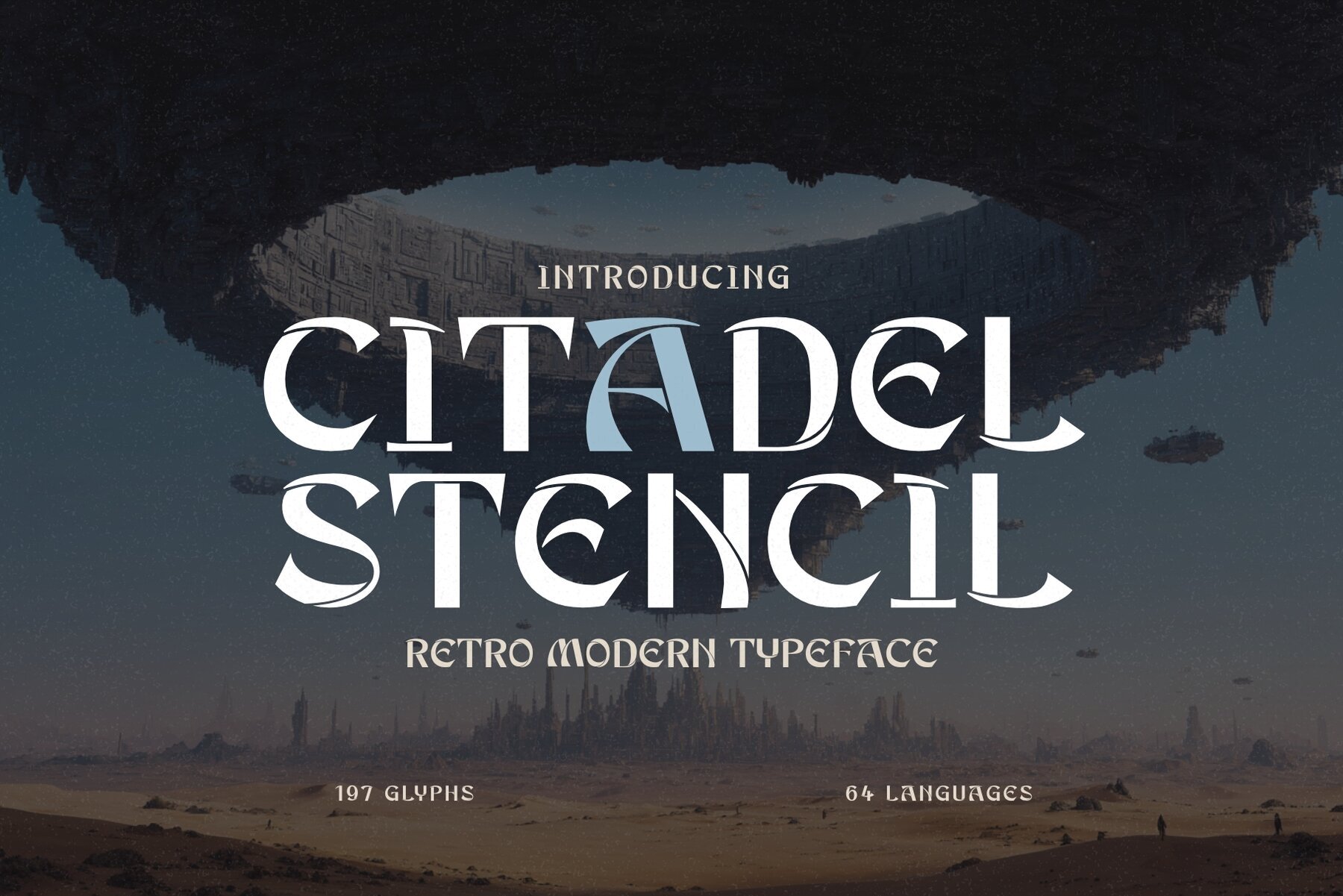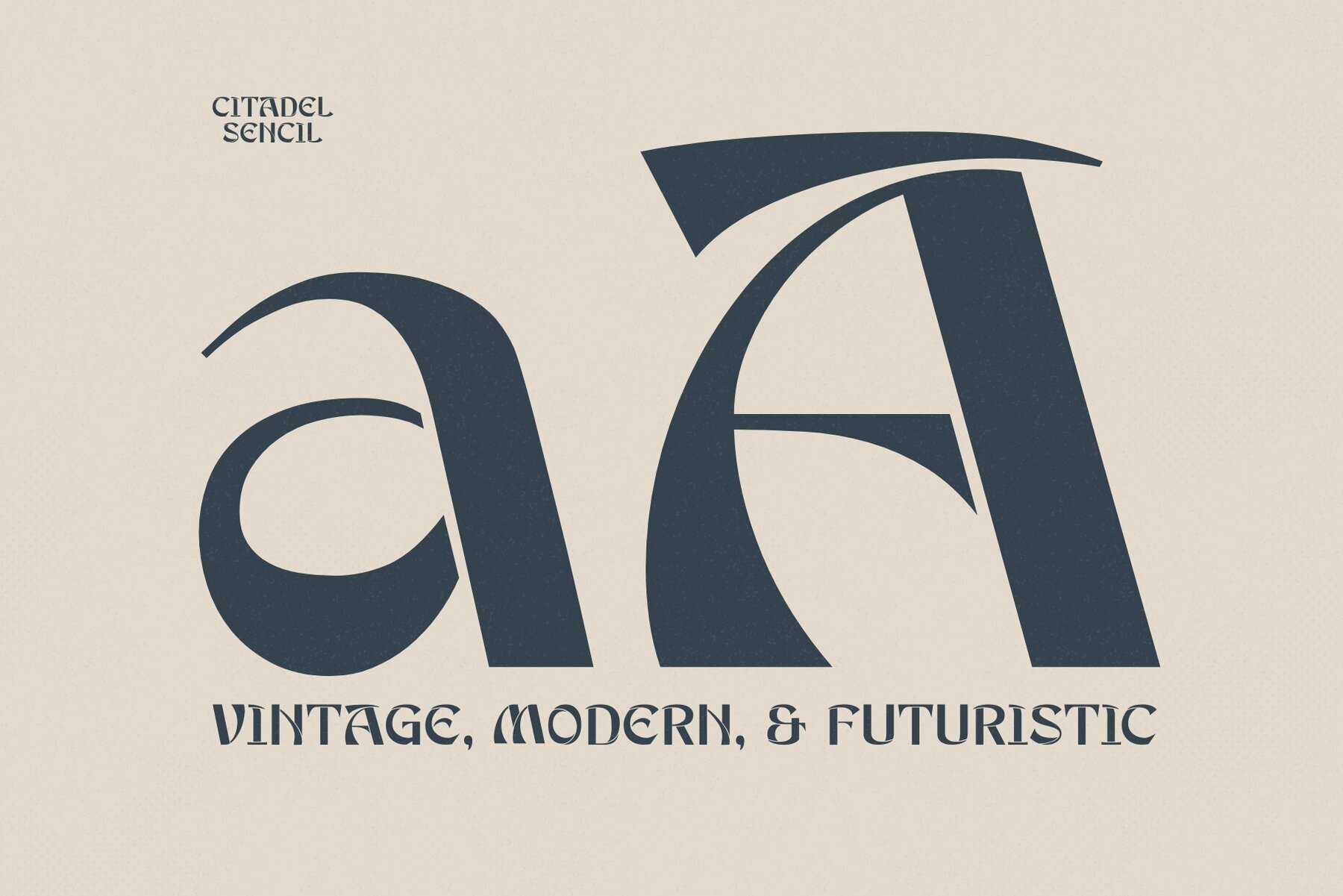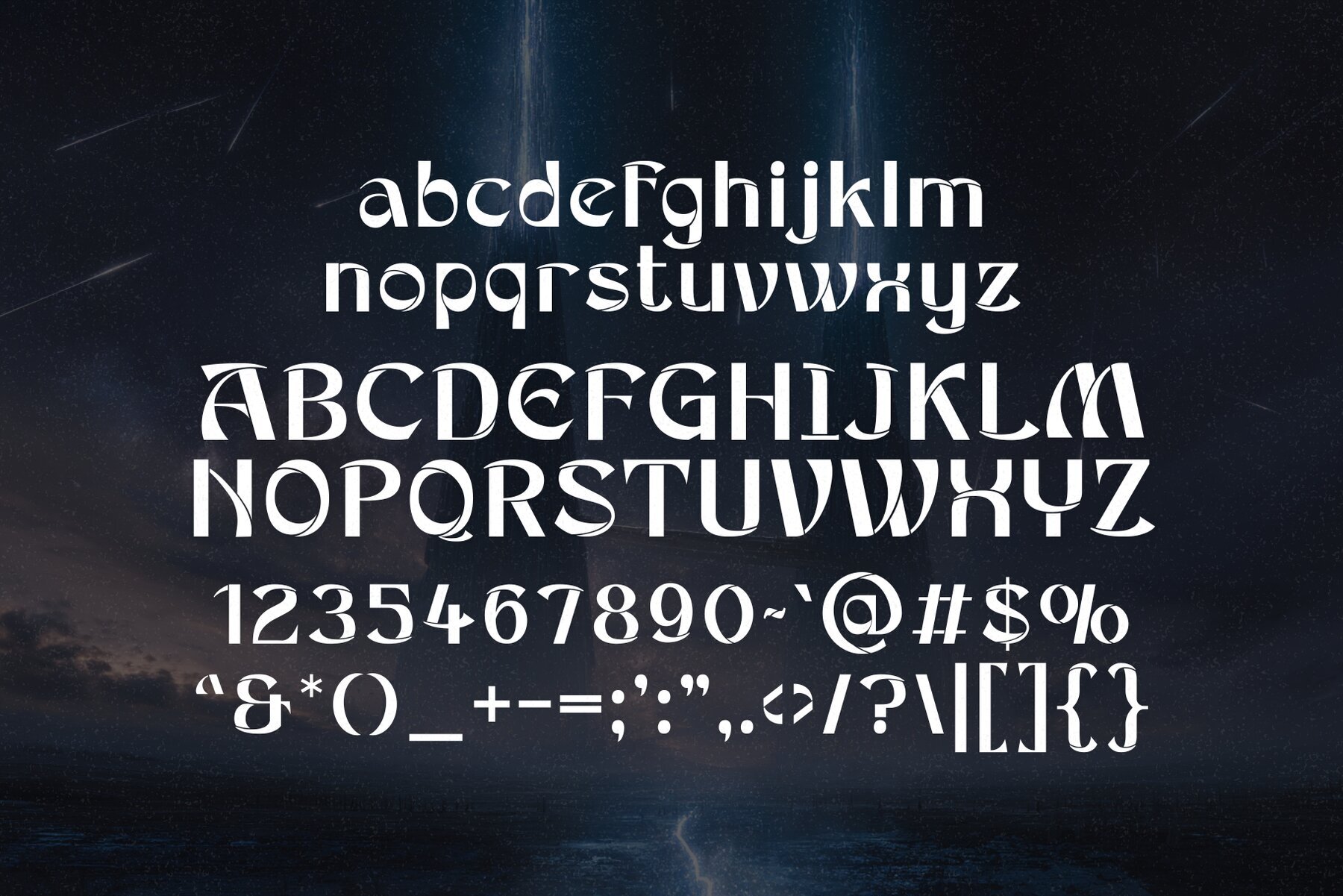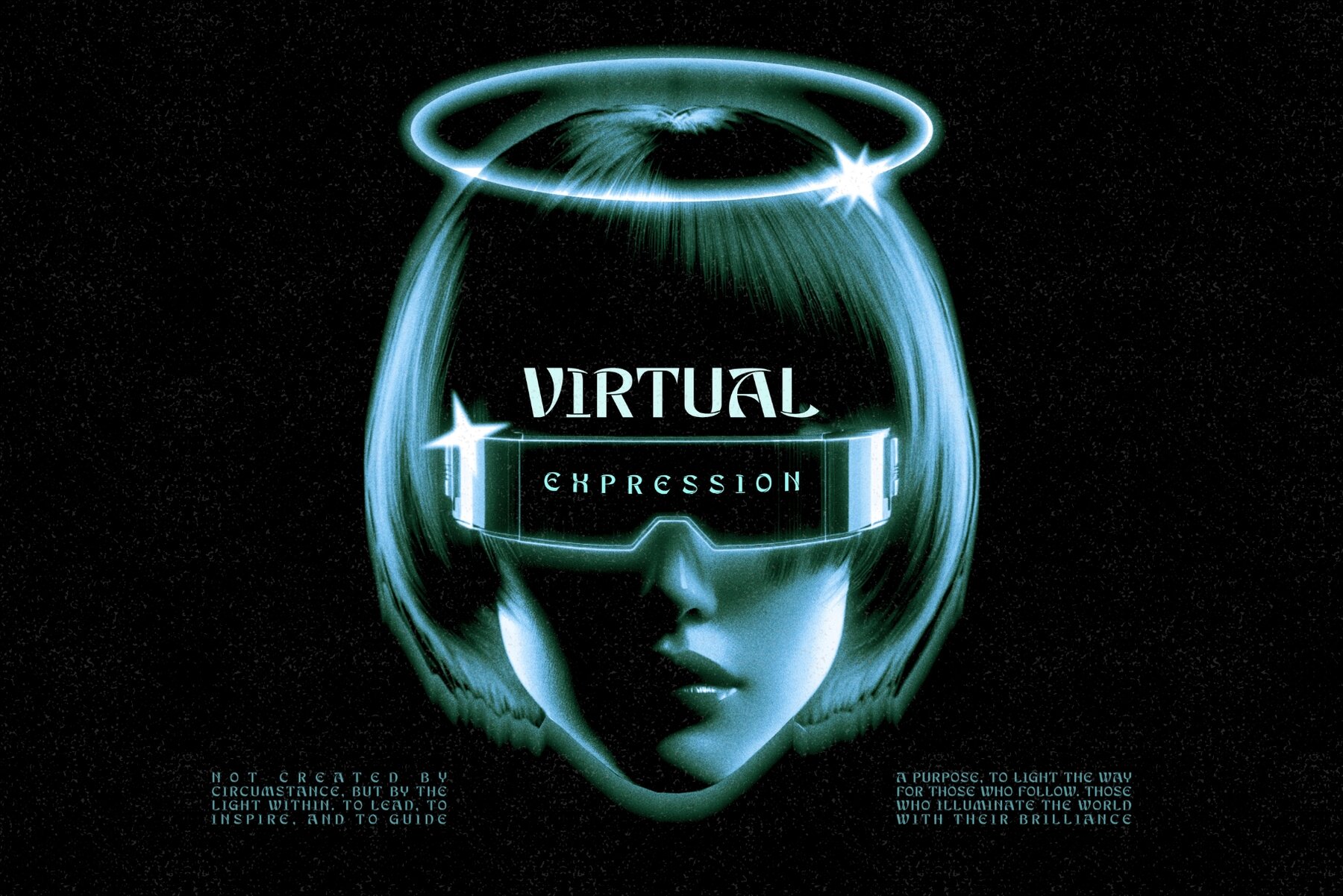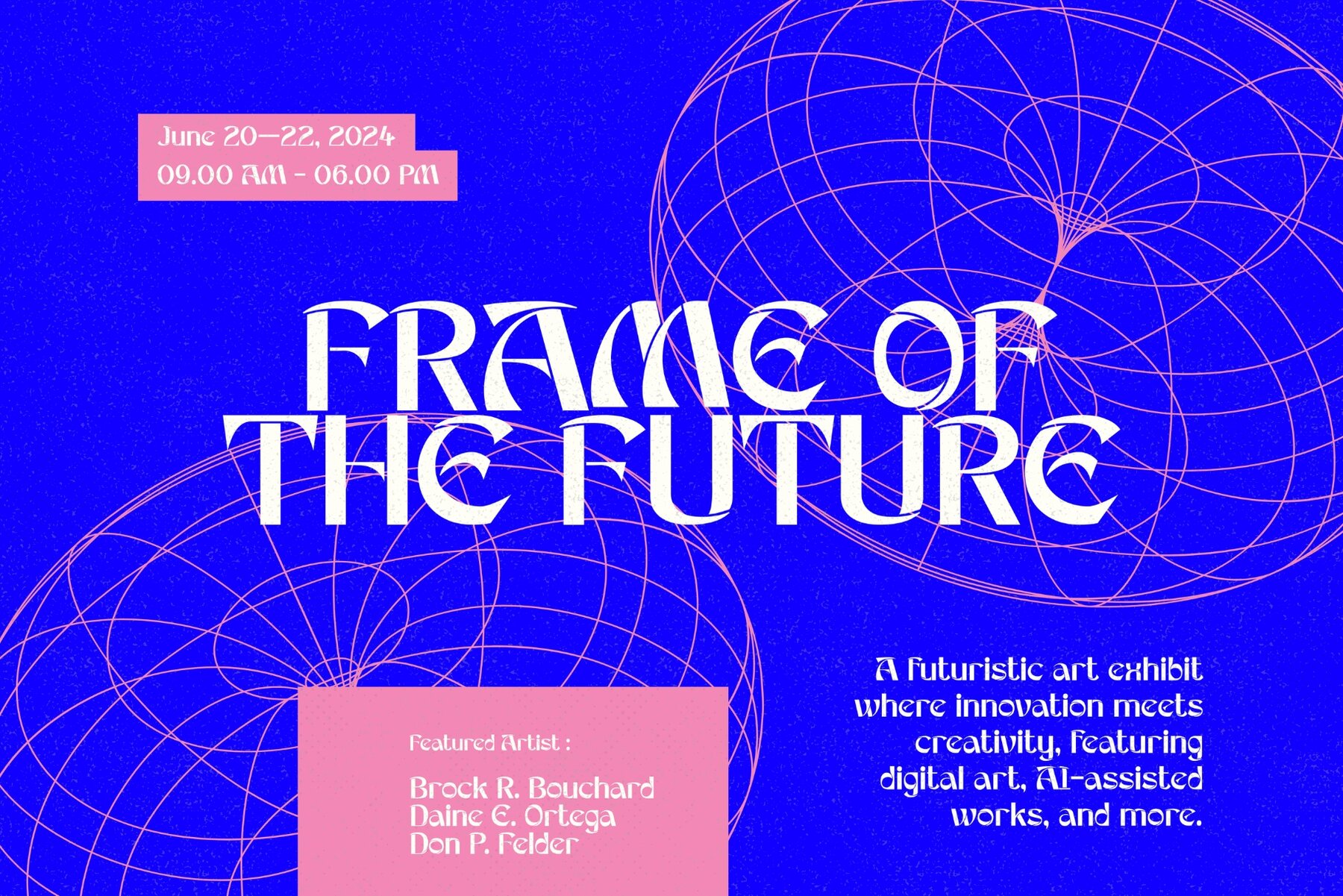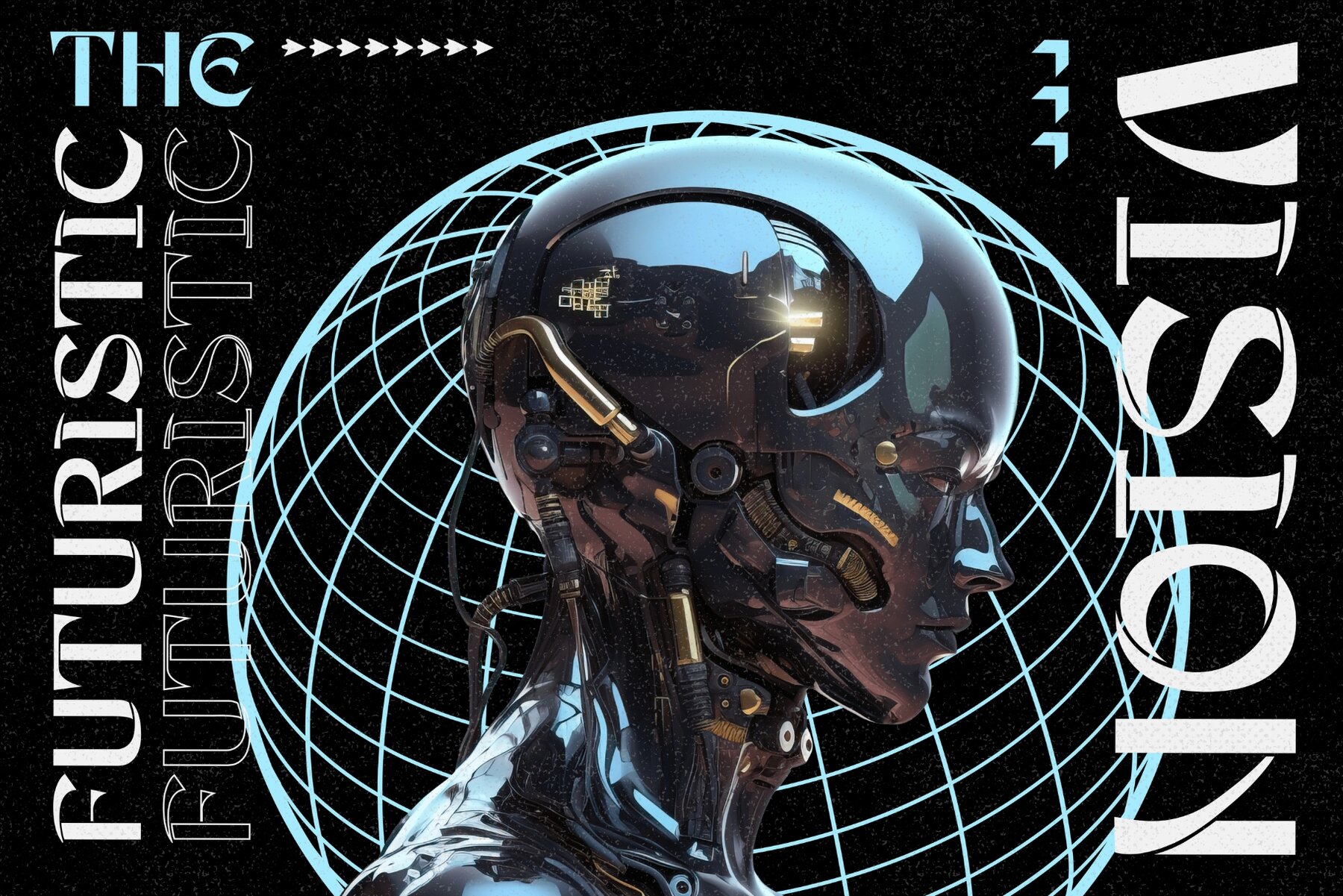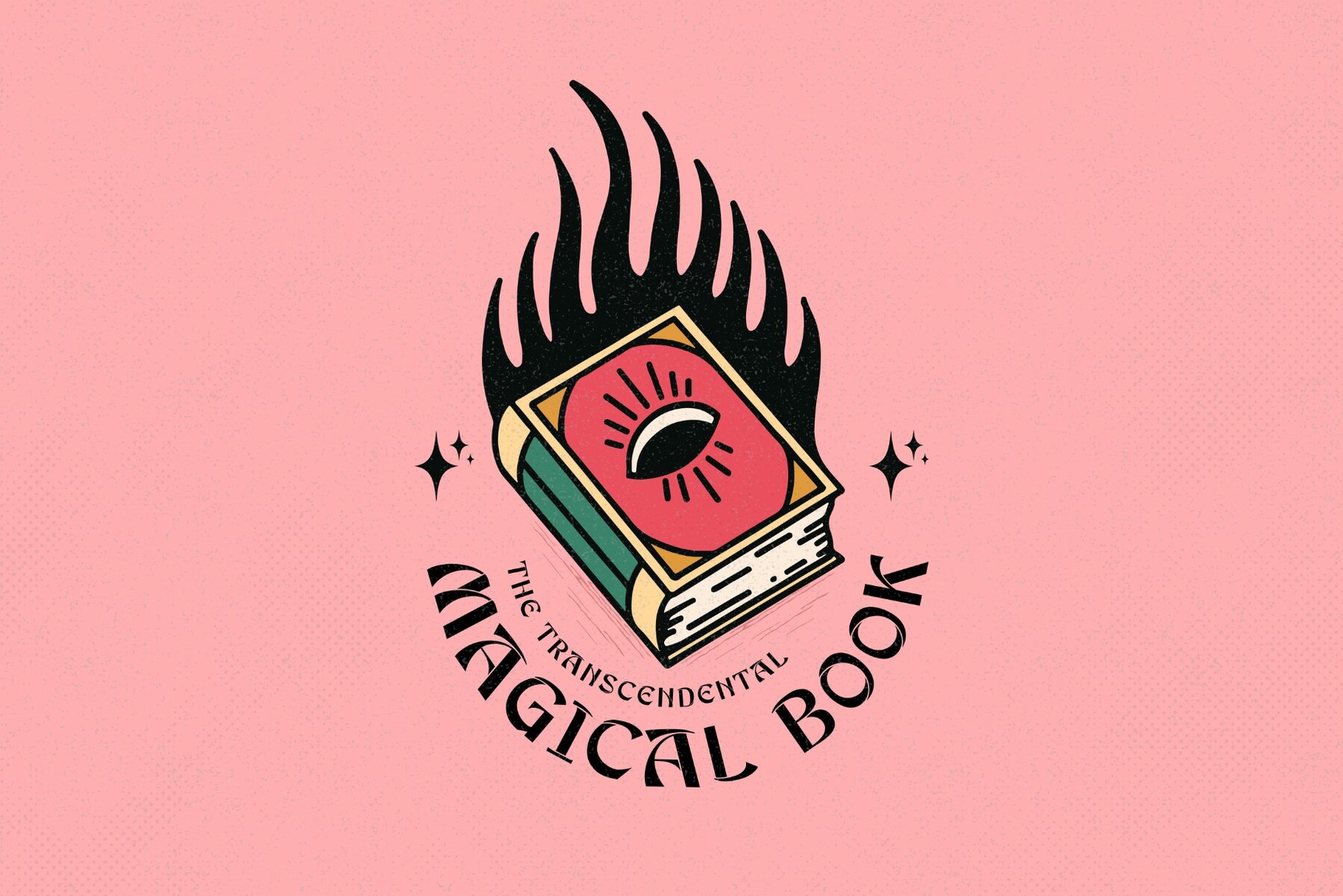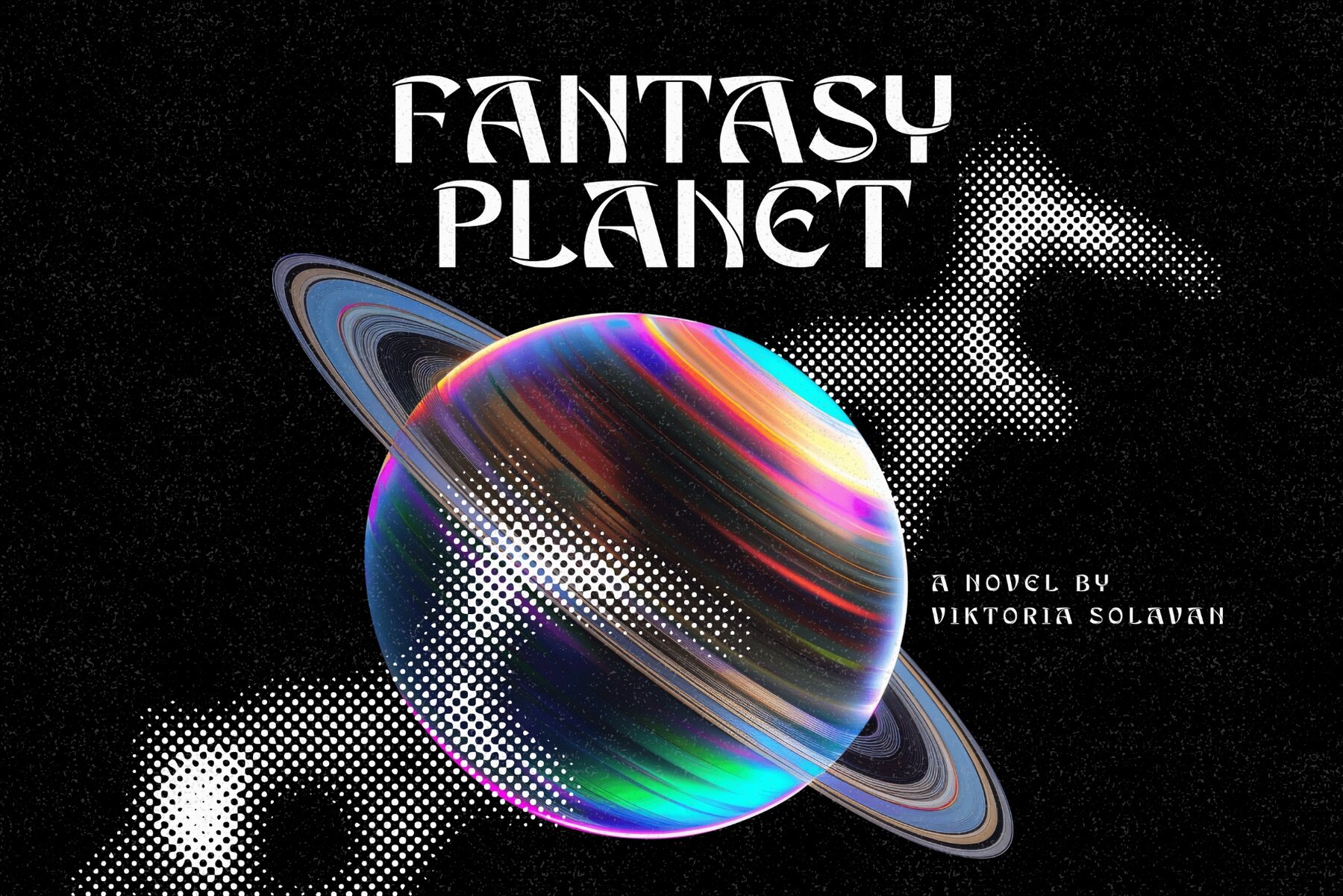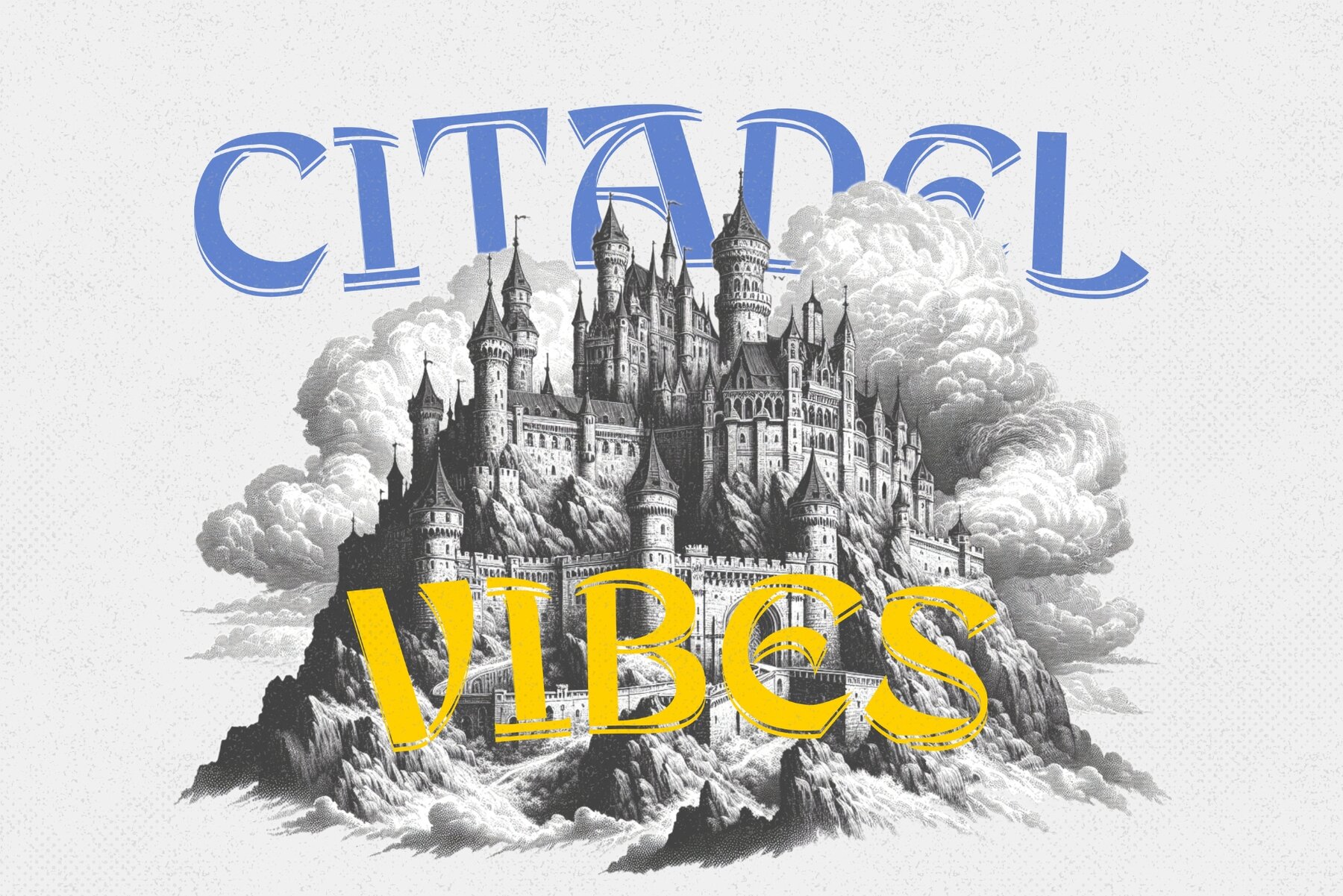
Citadel Stencil Font
Citadel Stencil
Experience a harmonious blend of retro charm and modern flair with Citadel Stencil. This bold typeface masterfully combines mid-century modern aesthetics with a distinctive stencil design, offering a visual identity that captivates. Ideal for creating impactful headlines, memorable logos, and timeless branding, Citadel Stencil stands out with precision and style. Whether you’re drawing inspiration from the past or designing for the future, Citadel Stencil serves as your typographic fortress, promising versatility and an undeniable edge.Citadel Stencil: A Bold Typeface with Retro-Futuristic Appeal